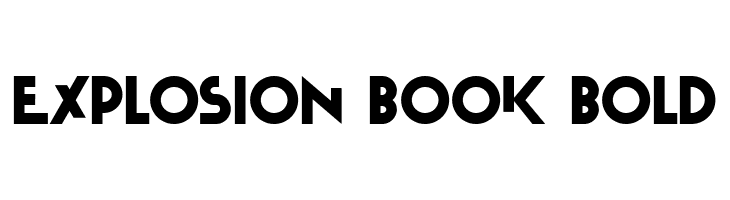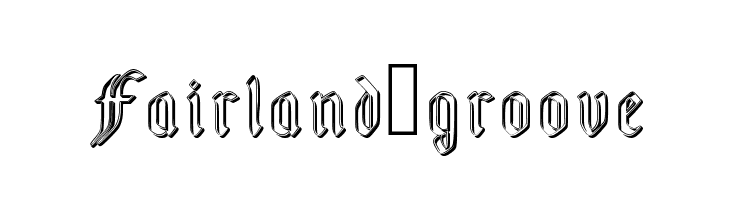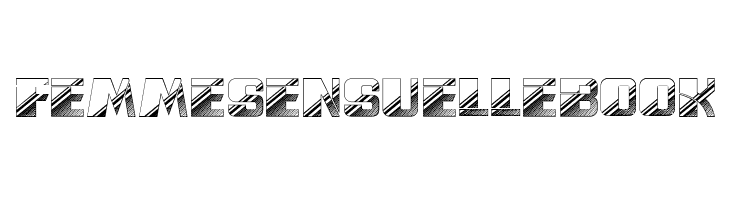
• Explosion Book
A bold, geometric font with sharp angles and a modern aesthetic.
• Explosion Book Bold
A bold, geometric font with sharp angles and high contrast, perfect for modern designs.
• Faint Book Regular
A bold, angular font with a graffiti-inspired style, perfect for impactful designs.
• Fairland
• Fairland_groove
• Favorit Grotesk
A bold, playful font with rounded, decorative characters and whimsical flourishes.
• Femme Sensuelle Book
A bold, decorative font with a 3D effect and striped patterns.
• Femme Sensuelle Regular
A bold, decorative font with a 3D effect and textured fill.
• Femme Sensuelle Stylish
A bold, decorative font with a unique striped pattern and geometric structure.
• Fine Books
An ornate, decorative font with intricate borders around bold, capitalized characters.